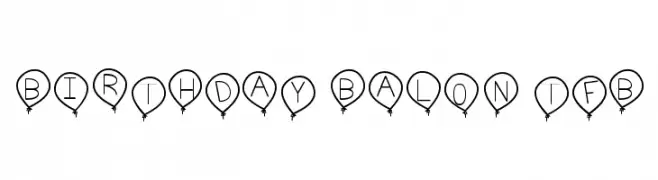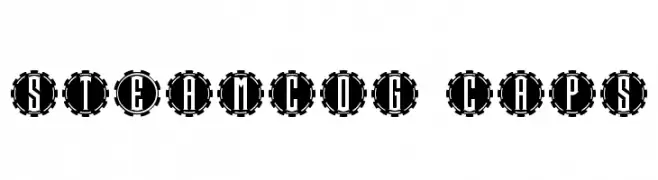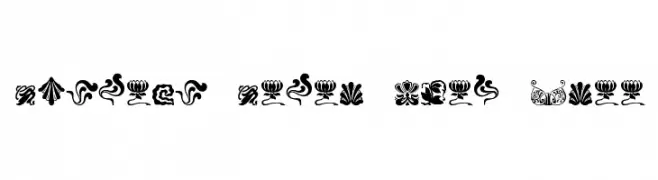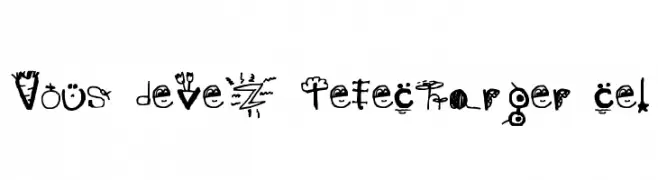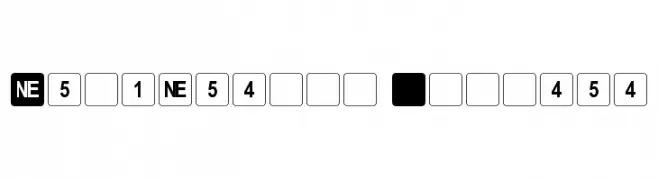
A hand-drawn, artistic font with tall, narrow characters and a rustic feel.
A playful font with letters inside balloon shapes, perfect for festive occasions.
A steampunk-inspired decorative font with bold, angular letters encased in gear-like circles.
A playful and whimsical collection of hand-drawn dingbats featuring various symbols.
A decorative font with intricate Art Nouveau-inspired designs.
A playful, dice-inspired font with rounded square enclosures and directional indicators.